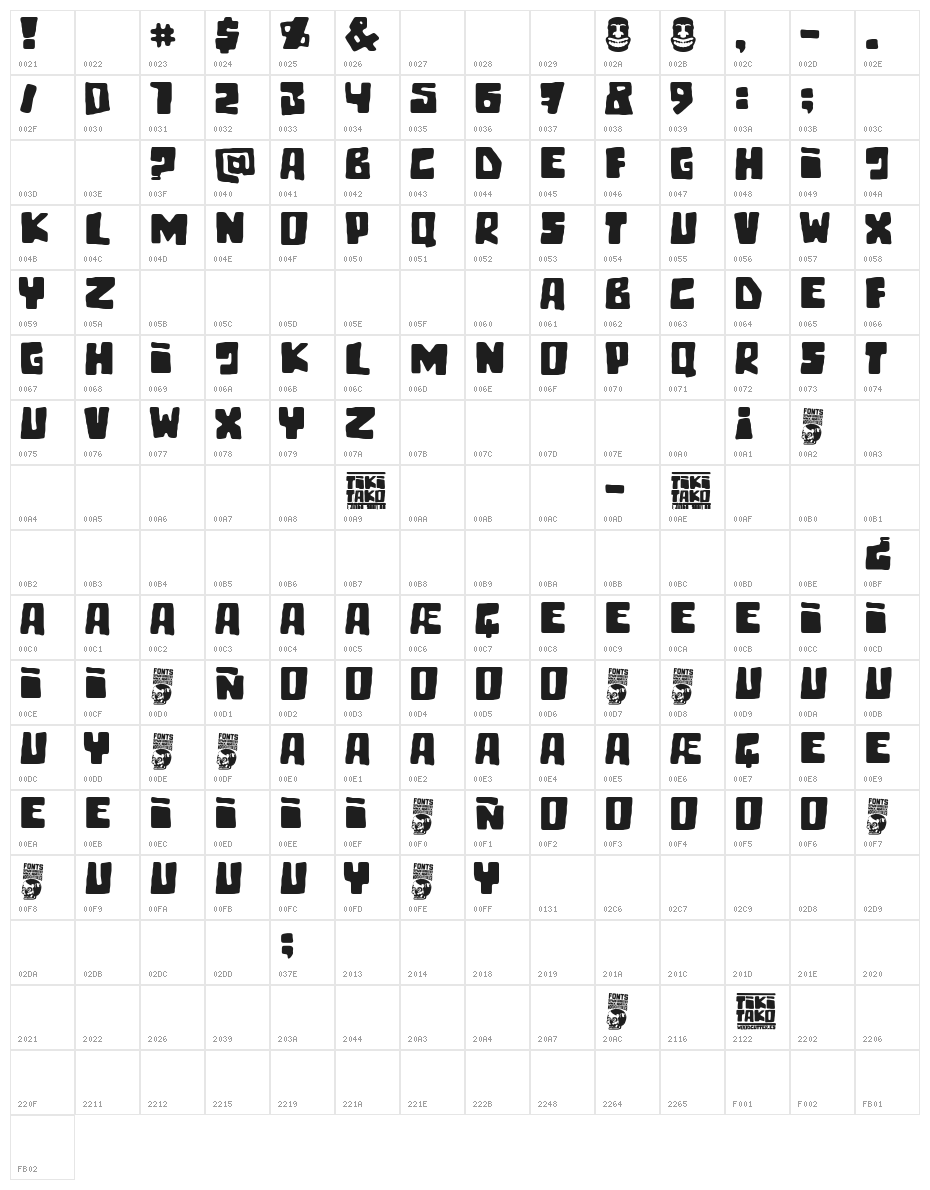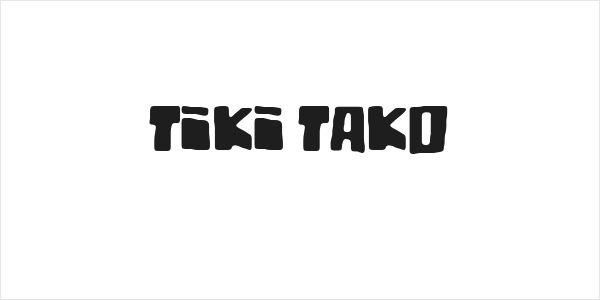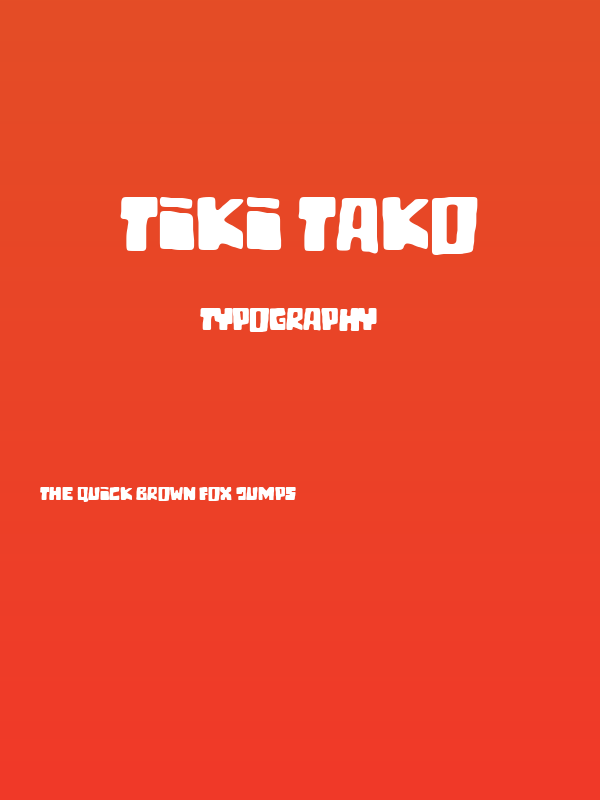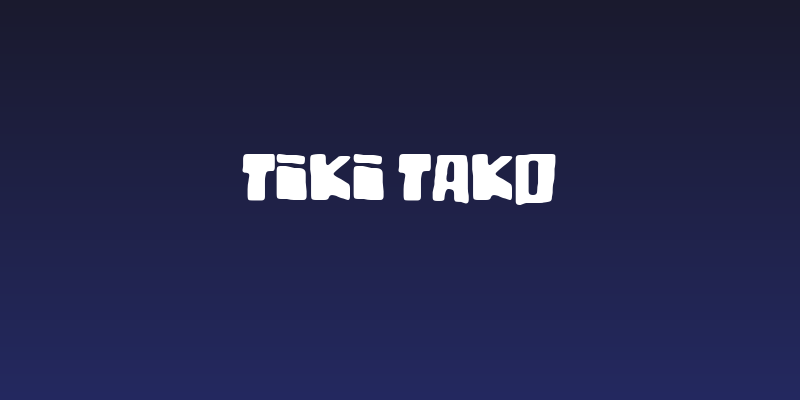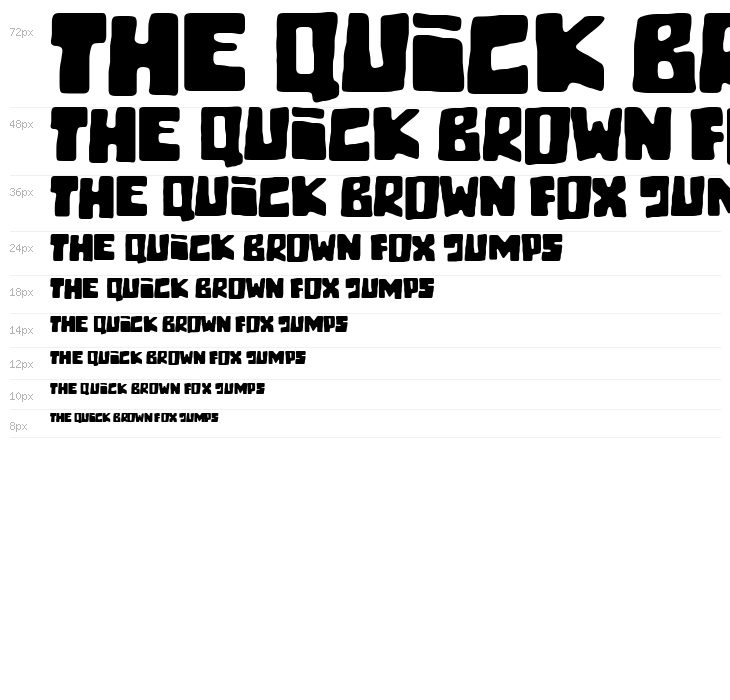
Tiki Tako Font
Tiki Tako Description
This font features a bold and playful design with a distinctly tribal and tiki-inspired aesthetic. The characters are thick and blocky, with uneven edges that give them a hand-carved appearance. The uppercase and lowercase letters maintain a consistent style, with exaggerated curves and angles that add to the font's unique charm. The numbers and special characters are equally bold, ensuring a cohesive look across all text elements. This font's distinctive style makes it ideal for projects that require a fun and adventurous vibe.
| Proposed Projects | Perfect for tropical-themed event posters, tiki bar menus, playful branding, and adventure-themed merchandise. |